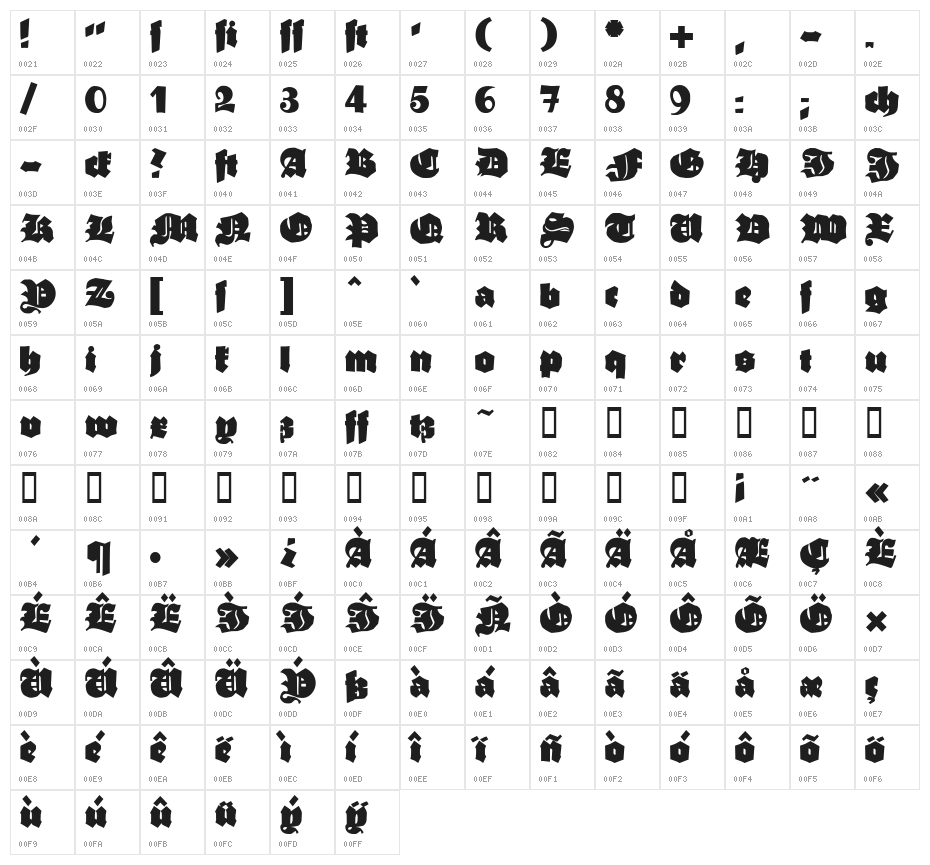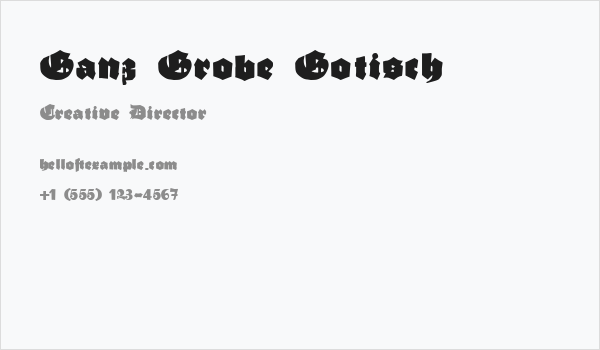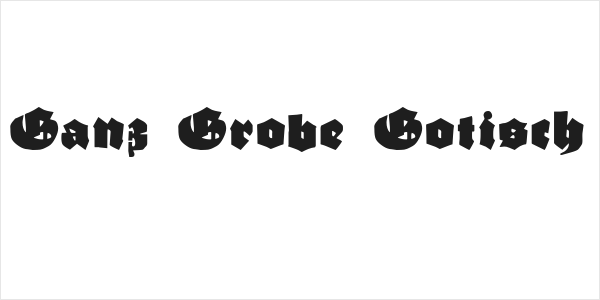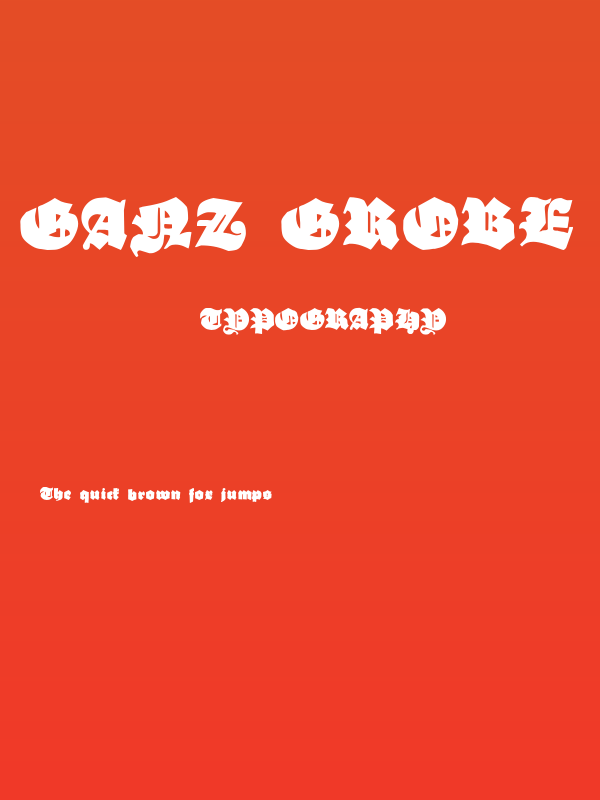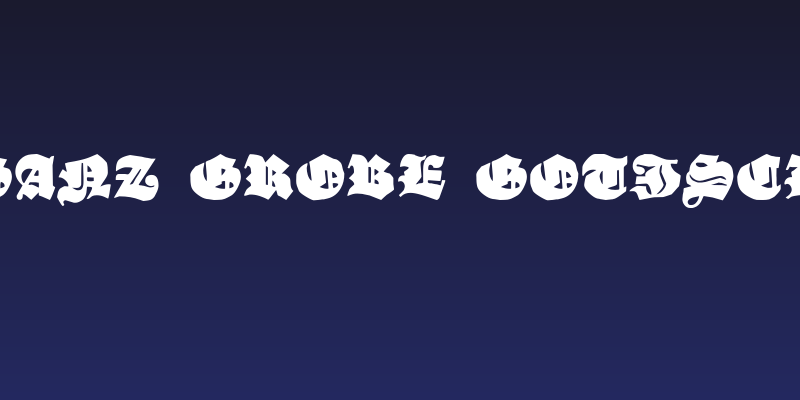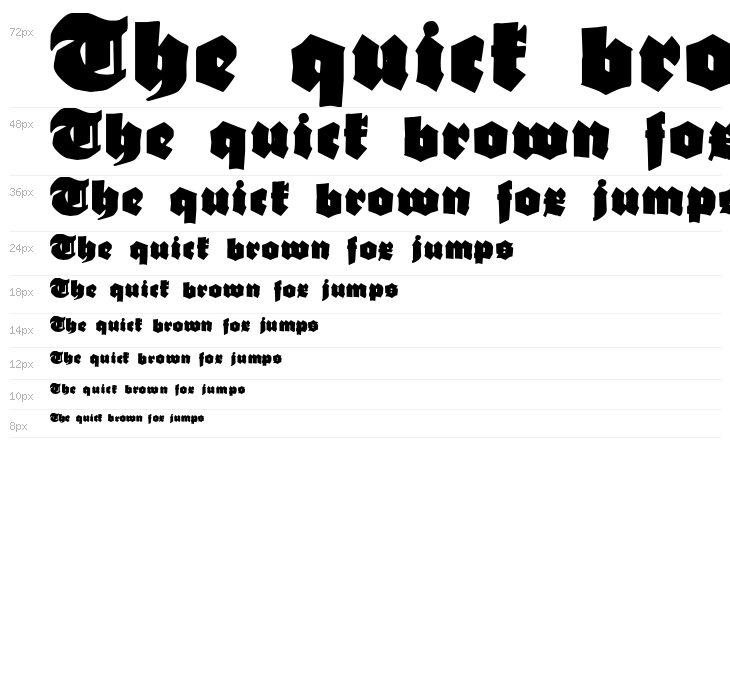
Ganz Grobe Gotisch Font
Ganz Grobe Gotisch Description
This font exhibits a bold and dramatic style, characterized by its intricate and angular letterforms reminiscent of traditional Gothic script. The uppercase letters are particularly ornate, with sharp serifs and elaborate curves that give a sense of historical elegance. The lowercase letters maintain this decorative flair, though they are slightly more subdued in their embellishments. The numerals are robust and consistent with the overall aesthetic, featuring strong vertical and horizontal strokes. Special characters are equally stylized, adding to the font's cohesive appearance. This font's striking presence makes it ideal for projects that require a touch of medieval or vintage charm.
Overall StyleVintage
Use CaseLogos, Headlines, Decorative text
Proposed ProjectsSuitable for historical themed designs, book covers, posters, and branding that requires a vintage or medieval touch.